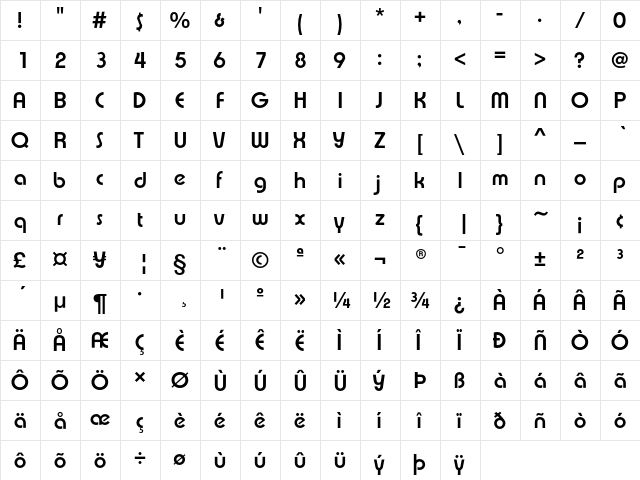
ExpressaEF DemiBold
Design Context for ExpressaEF Typeface
ExpressaEF takes a measured approach to typography — its balanced proportions and neutral character make it a reliable workhorse for both digital and print work. Its bold stroke weight gives it real presence on the page.